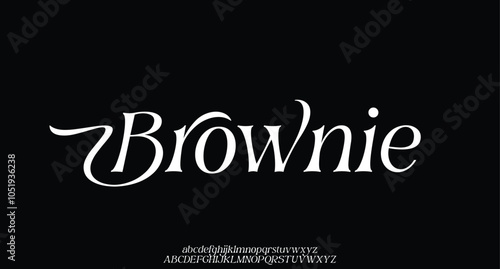
Elegant beautiful classic classy modern serif alphabet font typeface typography. Vector Illustrator editable.font, typeface, sophisticated, modern, luxury, serif, background, vector, logo, design